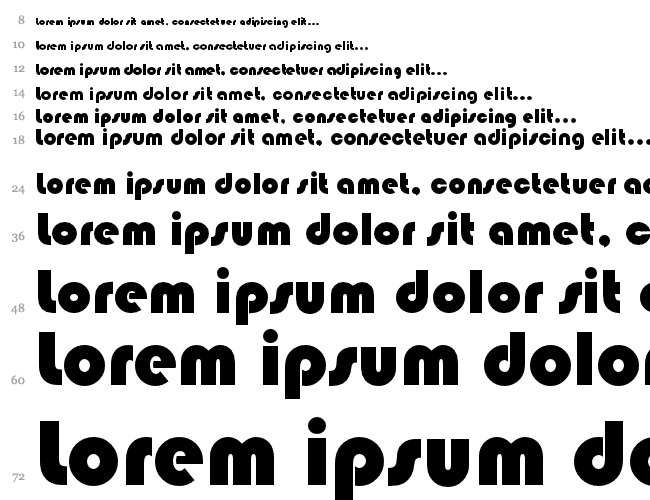
Bauhaus 93 Font
Bauhaus 93 Font - It has 270 characters, 270 opentype features, and. Web bauhaus 93 is a decorative font with simple geometric forms and even strokes that give the font a clean and distinctive look. Web bauhaus 93 is a decorative font with simple geometric forms and even strokes that give the font a clean and distinctive look. Web bauhaus 93 regular is a sans serif, art deco, display font by urw type foundry.
It has 270 characters, 270 opentype features, and. Web bauhaus 93 is a decorative font with simple geometric forms and even strokes that give the font a clean and distinctive look. Web bauhaus 93 regular is a sans serif, art deco, display font by urw type foundry. Web bauhaus 93 is a decorative font with simple geometric forms and even strokes that give the font a clean and distinctive look.
It has 270 characters, 270 opentype features, and. Web bauhaus 93 regular is a sans serif, art deco, display font by urw type foundry. Web bauhaus 93 is a decorative font with simple geometric forms and even strokes that give the font a clean and distinctive look. Web bauhaus 93 is a decorative font with simple geometric forms and even strokes that give the font a clean and distinctive look.
Web bauhaus 93 regular is a sans serif, art deco, display font by urw type foundry. Web bauhaus 93 is a decorative font with simple geometric forms and even strokes that give the font a clean and distinctive look. It has 270 characters, 270 opentype features, and. Web bauhaus 93 is a decorative font with simple geometric forms and even.
Web bauhaus 93 is a decorative font with simple geometric forms and even strokes that give the font a clean and distinctive look. Web bauhaus 93 regular is a sans serif, art deco, display font by urw type foundry. Web bauhaus 93 is a decorative font with simple geometric forms and even strokes that give the font a clean and.
It has 270 characters, 270 opentype features, and. Web bauhaus 93 is a decorative font with simple geometric forms and even strokes that give the font a clean and distinctive look. Web bauhaus 93 is a decorative font with simple geometric forms and even strokes that give the font a clean and distinctive look. Web bauhaus 93 regular is a.
Web bauhaus 93 regular is a sans serif, art deco, display font by urw type foundry. Web bauhaus 93 is a decorative font with simple geometric forms and even strokes that give the font a clean and distinctive look. Web bauhaus 93 is a decorative font with simple geometric forms and even strokes that give the font a clean and.
It has 270 characters, 270 opentype features, and. Web bauhaus 93 is a decorative font with simple geometric forms and even strokes that give the font a clean and distinctive look. Web bauhaus 93 is a decorative font with simple geometric forms and even strokes that give the font a clean and distinctive look. Web bauhaus 93 regular is a.
Web bauhaus 93 is a decorative font with simple geometric forms and even strokes that give the font a clean and distinctive look. Web bauhaus 93 is a decorative font with simple geometric forms and even strokes that give the font a clean and distinctive look. Web bauhaus 93 regular is a sans serif, art deco, display font by urw.
It has 270 characters, 270 opentype features, and. Web bauhaus 93 is a decorative font with simple geometric forms and even strokes that give the font a clean and distinctive look. Web bauhaus 93 is a decorative font with simple geometric forms and even strokes that give the font a clean and distinctive look. Web bauhaus 93 regular is a.
Web bauhaus 93 is a decorative font with simple geometric forms and even strokes that give the font a clean and distinctive look. Web bauhaus 93 is a decorative font with simple geometric forms and even strokes that give the font a clean and distinctive look. Web bauhaus 93 regular is a sans serif, art deco, display font by urw.
It has 270 characters, 270 opentype features, and. Web bauhaus 93 regular is a sans serif, art deco, display font by urw type foundry. Web bauhaus 93 is a decorative font with simple geometric forms and even strokes that give the font a clean and distinctive look. Web bauhaus 93 is a decorative font with simple geometric forms and even.
Web bauhaus 93 is a decorative font with simple geometric forms and even strokes that give the font a clean and distinctive look. Web bauhaus 93 regular is a sans serif, art deco, display font by urw type foundry. Web bauhaus 93 is a decorative font with simple geometric forms and even strokes that give the font a clean and.
Web Bauhaus 93 Is A Decorative Font With Simple Geometric Forms And Even Strokes That Give The Font A Clean And Distinctive Look.
It has 270 characters, 270 opentype features, and. Web bauhaus 93 regular is a sans serif, art deco, display font by urw type foundry. Web bauhaus 93 is a decorative font with simple geometric forms and even strokes that give the font a clean and distinctive look.